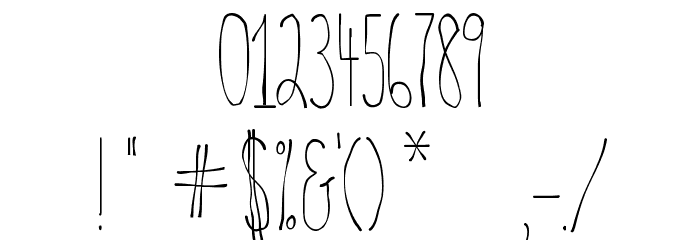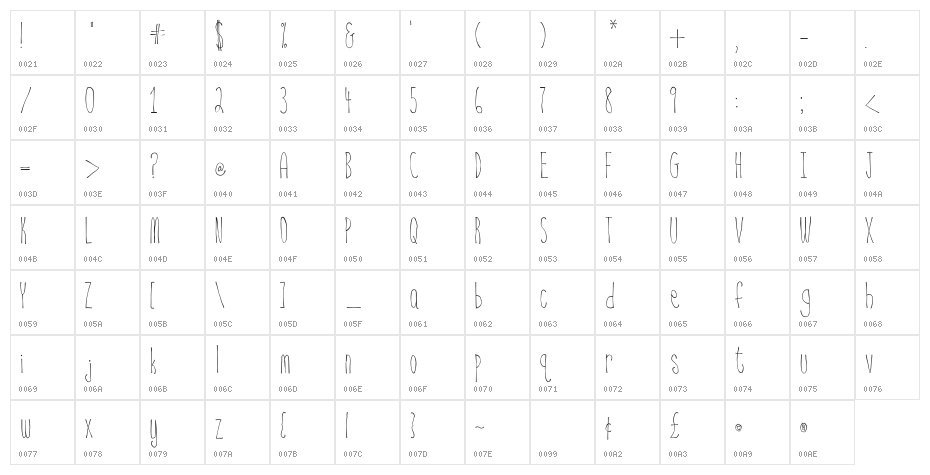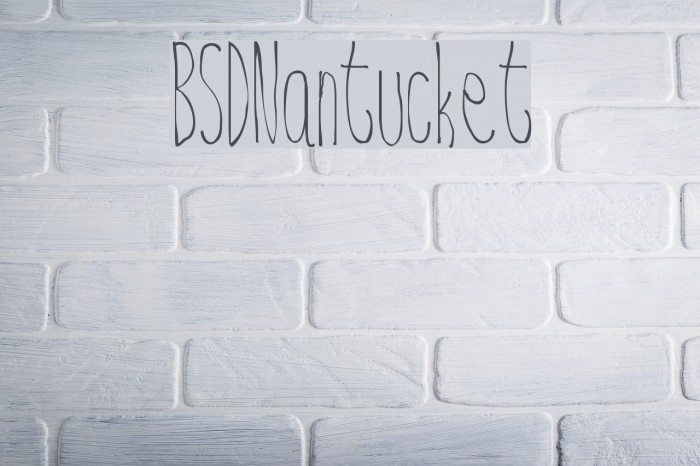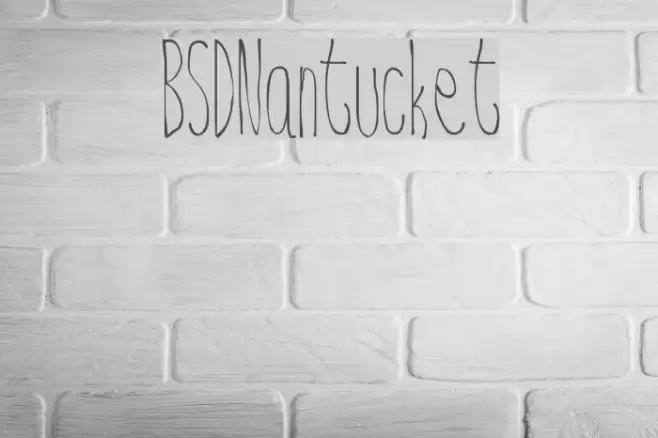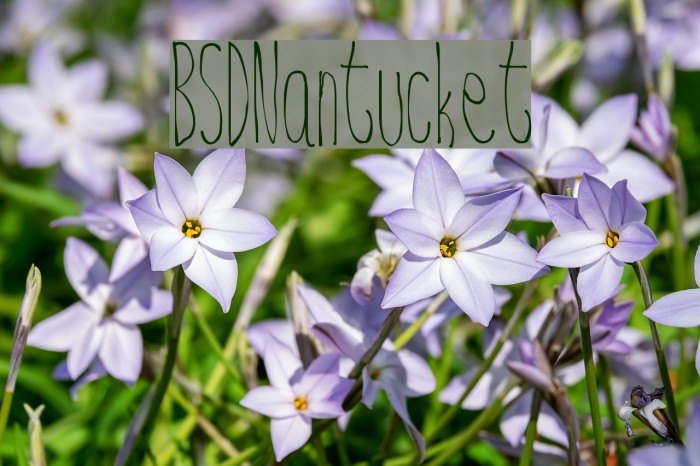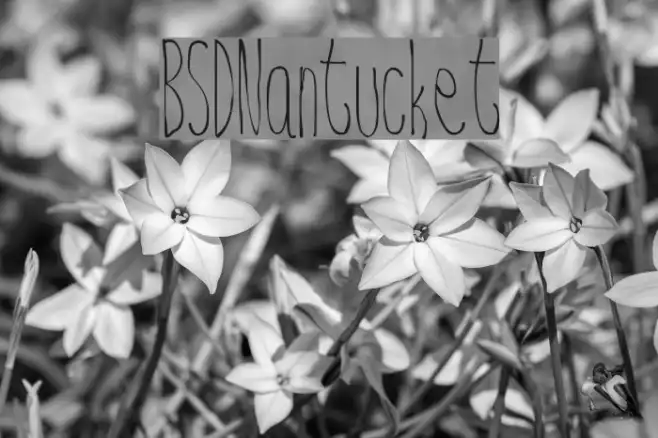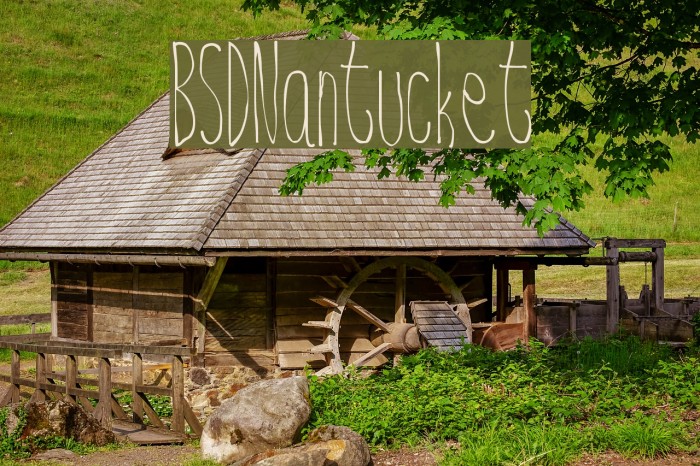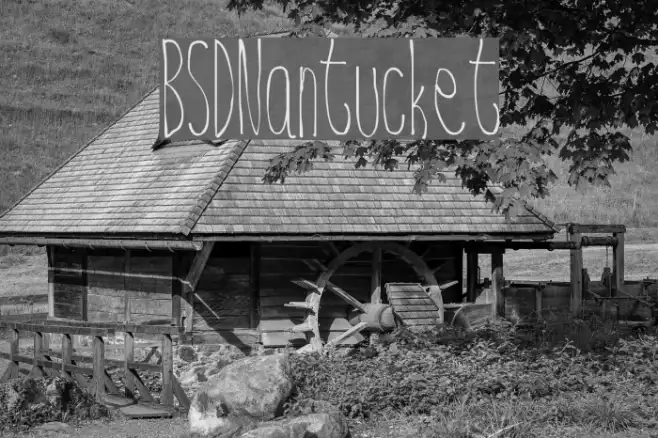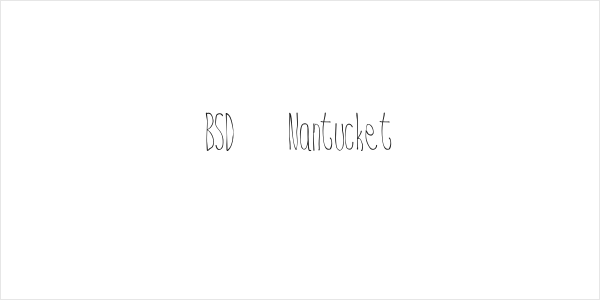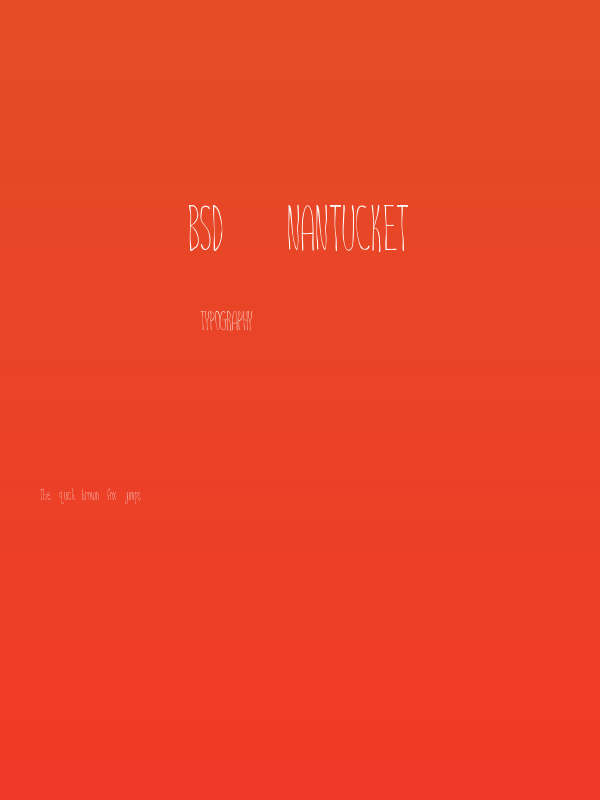
BSD Nantucket Font
BSD Nantucket Description
This font features a whimsical, hand-drawn style with tall, narrow characters that give it a playful and artistic appearance. The strokes are uneven, adding to its casual and informal feel. The uppercase and lowercase letters maintain a consistent height, while the numbers and special characters follow the same thin, elongated design. This font's unique character shapes and irregular lines make it stand out, offering a creative and distinctive look suitable for various design projects.
| Proposed Projects | Ideal for creative projects such as greeting cards, children's books, posters, and artistic branding. |